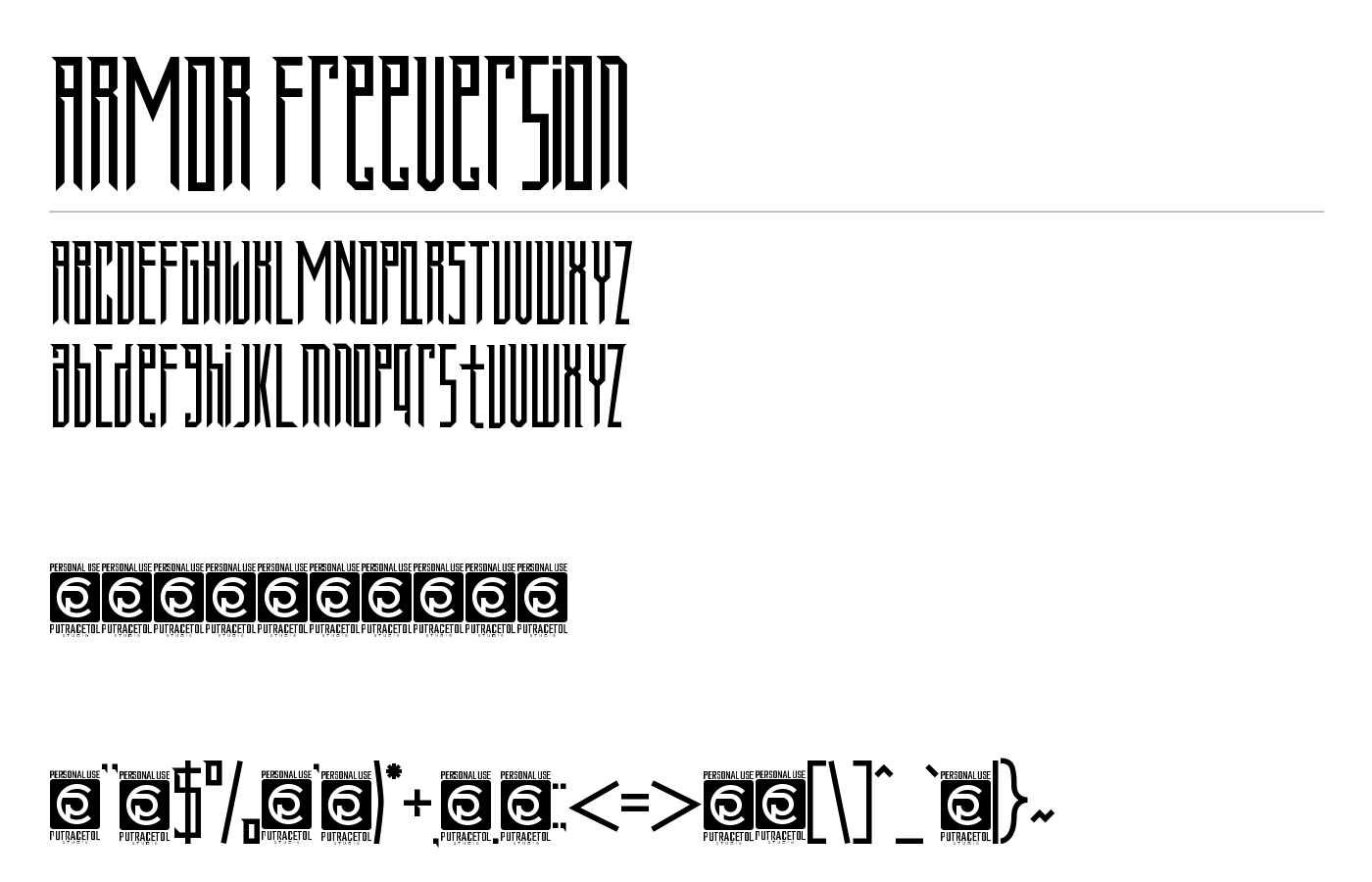
ARMOR is a condensed, tall sans serif font with a striking, narrow structure that exudes a modern and edgy vibe. Its sharp, geometric lines and uniform stroke weight create a bold and dramatic look, making it perfect for attention-grabbing headlines, logos, and urban-themed designs where a strong, distinctive presence is needed. This font works best in display settings where its unique style can stand out without sacrificing clarity.
ARMOR Font
About ARMOR Font
| Font family | ARMOR Font |